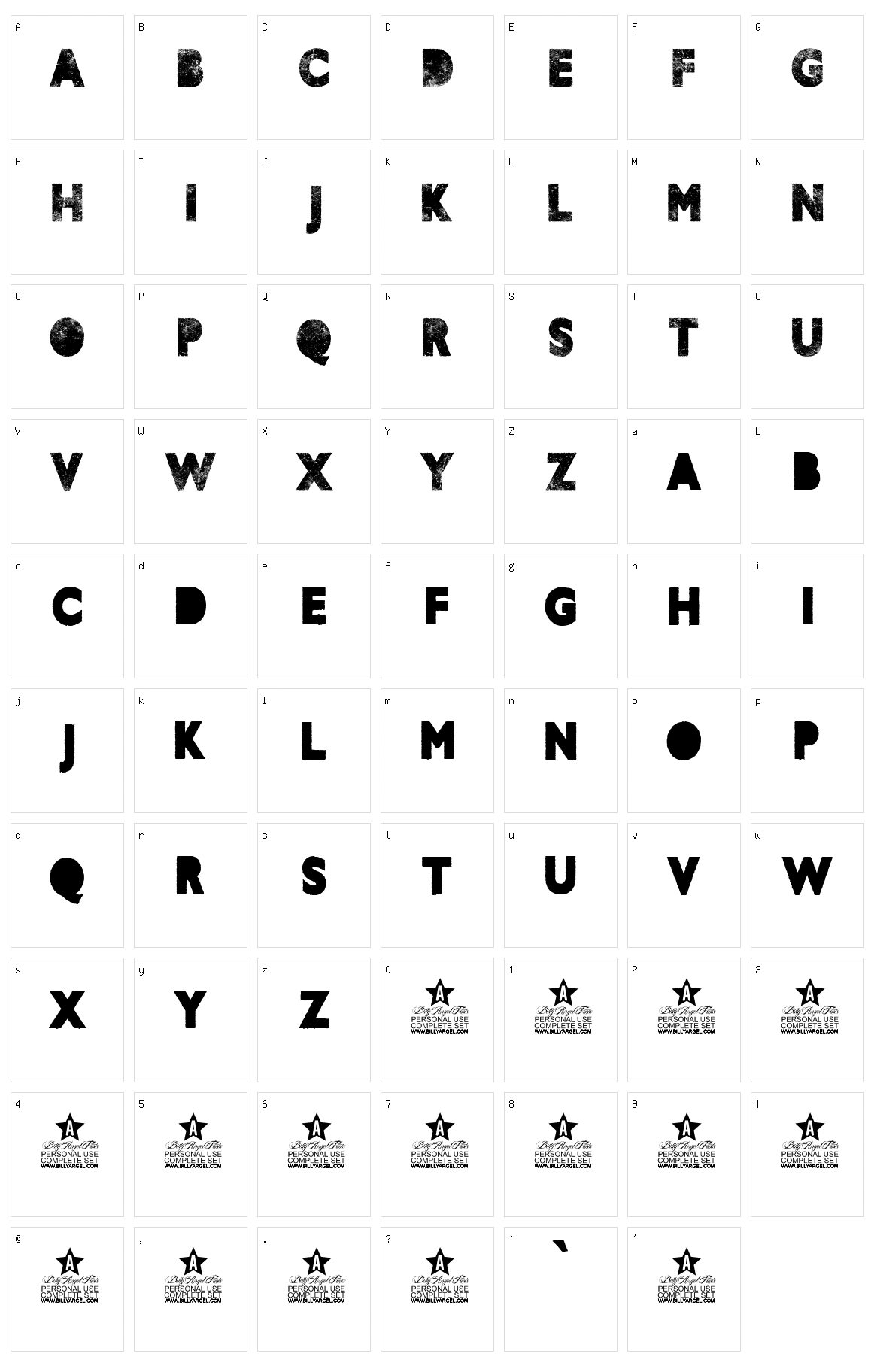
The free font Underway is carefully designed by Billy Argel Fonts ®, showcasing a thoughtful balance of creativity and usability and falls under the Eroded font style. When you download the ZIP file, it contains only 8560.4 KB of font files, making it lightweight and quick to download. Please review the license details below to understand permitted usage and distribution rights. If license information is not available, we recommend using this font for personal projects only or contacting the author directly for commercial usage permissions.